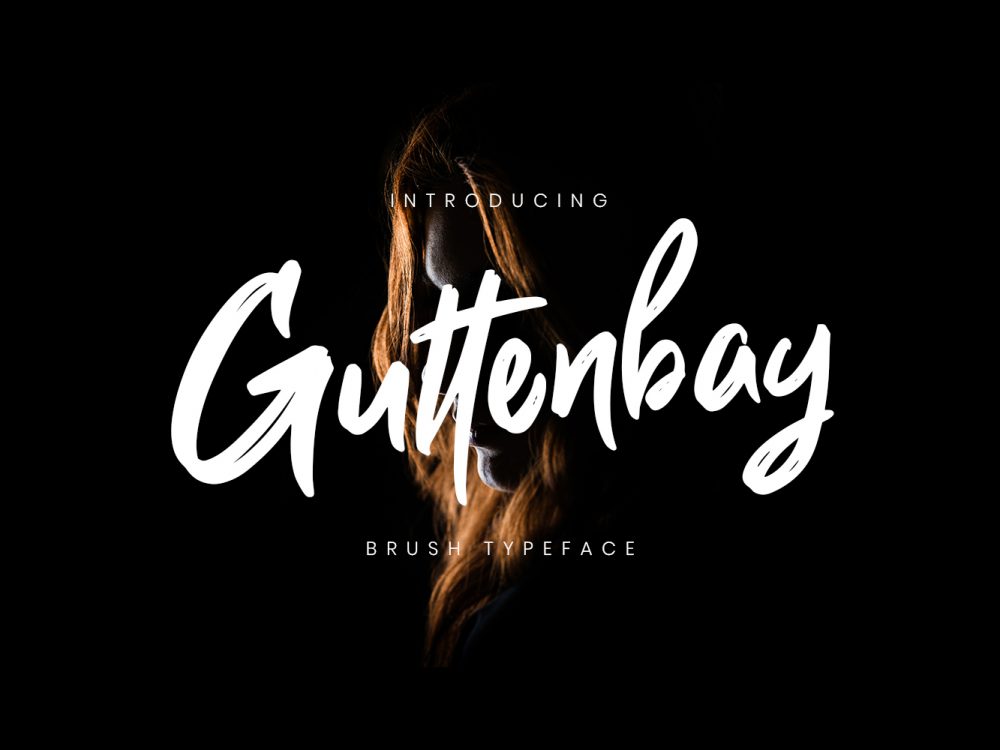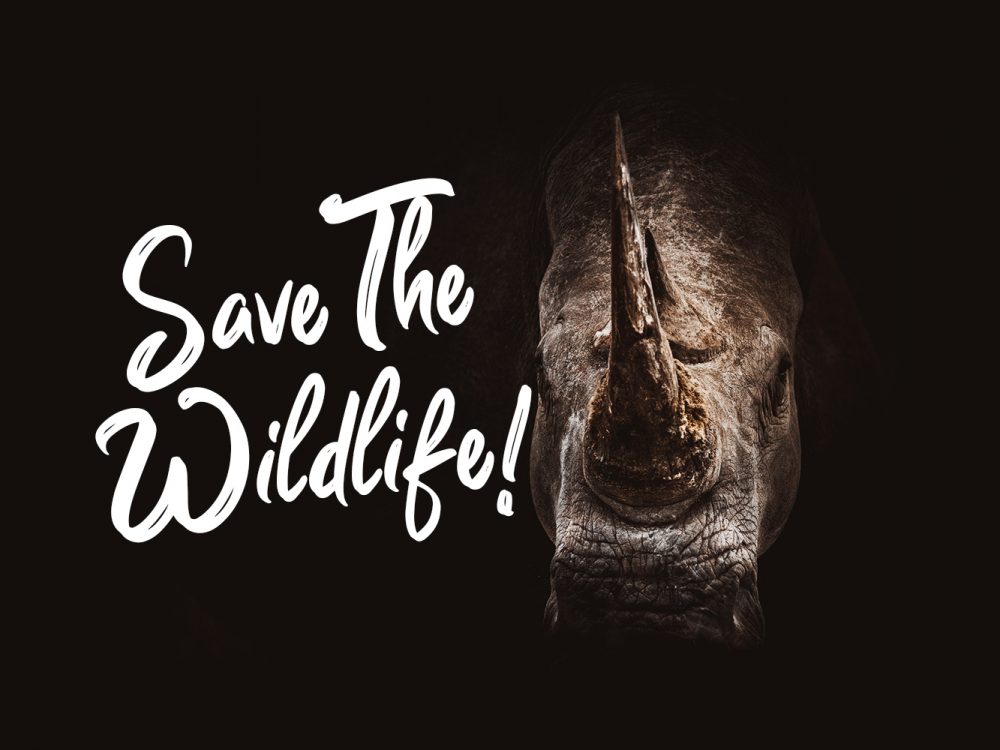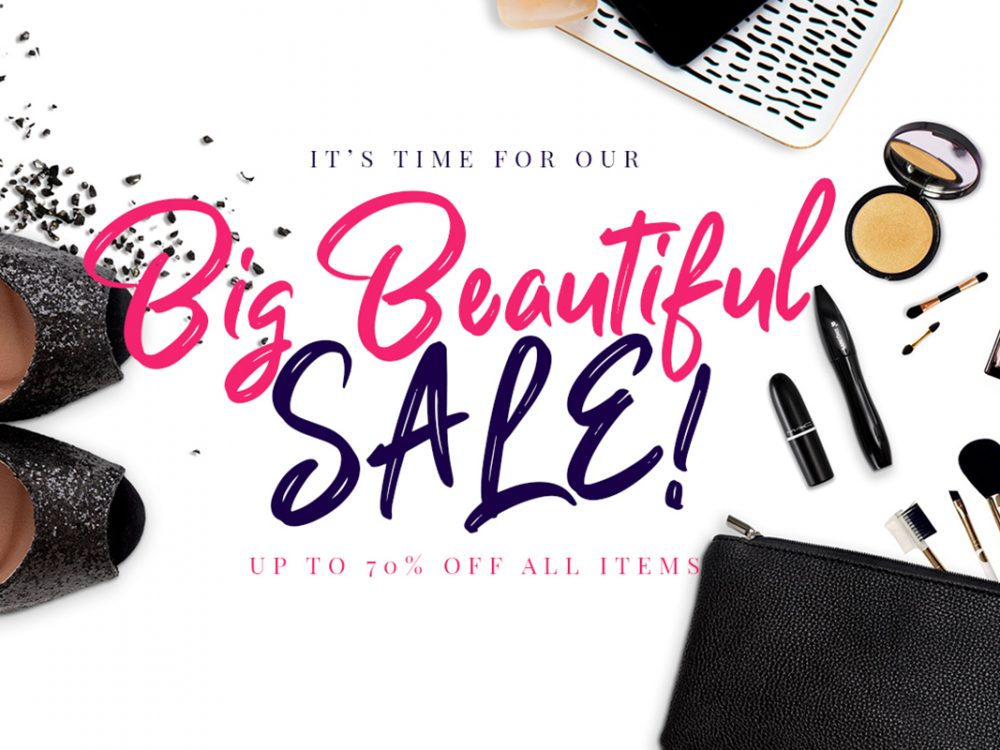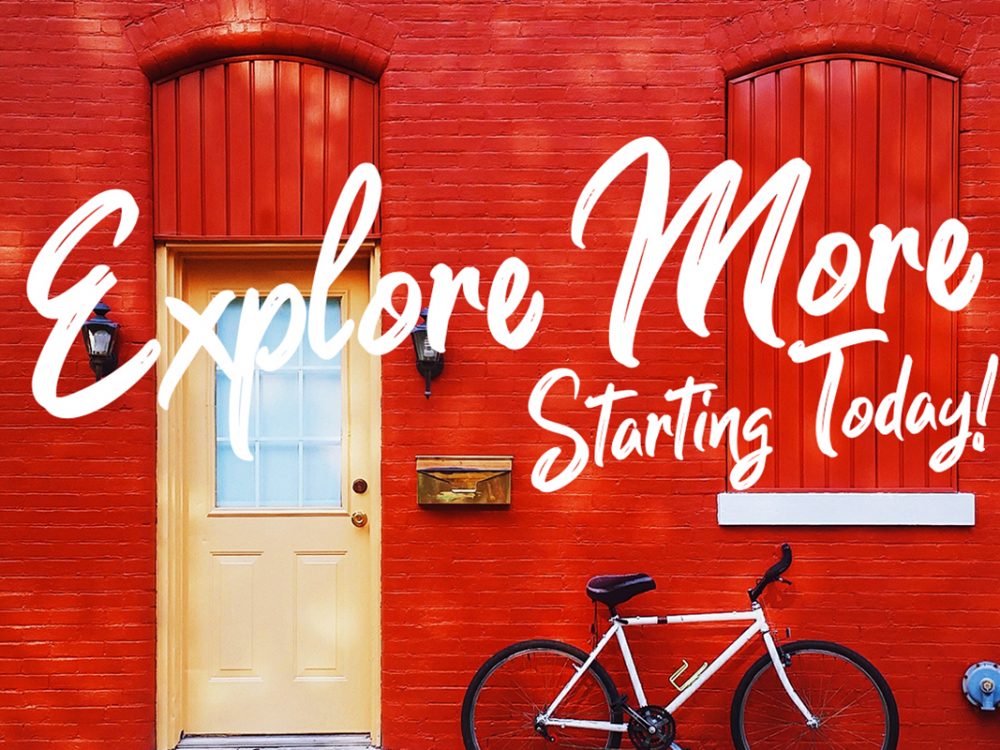
Guttenbay Free Font
Guttenbay is a free font that is available for download and use on a variety of platforms. It is a sans-serif typeface that is characterized by its clean, modern lines and minimalistic design.
Guttenbay is a versatile font that can be used for a wide range of applications, including in headings, titles, and body text. It is well-suited for use in both print and digital media, and it is legible at a variety of sizes and resolutions.
Guttenbay is available in a range of weights, including light, regular, medium, and bold, allowing users to choose the best font weight for their specific needs. It also includes a full set of uppercase and lowercase letters, numerals, and punctuation marks, as well as support for a variety of languages.
Overall, Guttenbay is a reliable and stylish font that is sure to add a touch of sophistication to any project.
Author: Creatype Studio